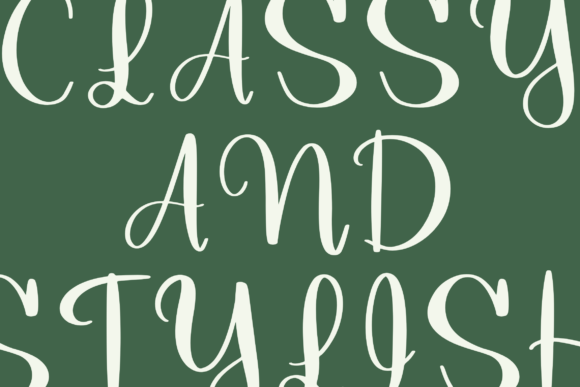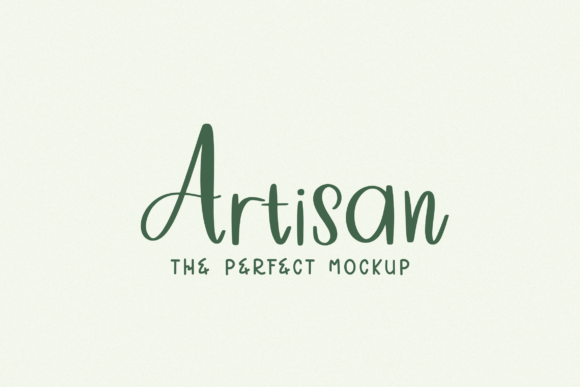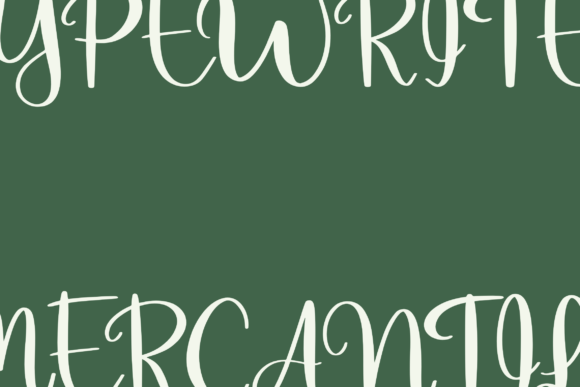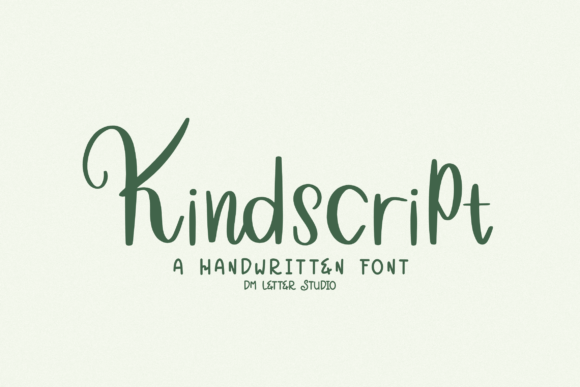
Introduction to Kindscript Font
Kindscript is a beautiful handwritten font with soft curves and a natural, flowing rhythm.
The strokes feel warm and genuine, like thoughtful handwriting written with care It blends elegance and friendliness, making it perfect for both romantic and everyday creative projects.